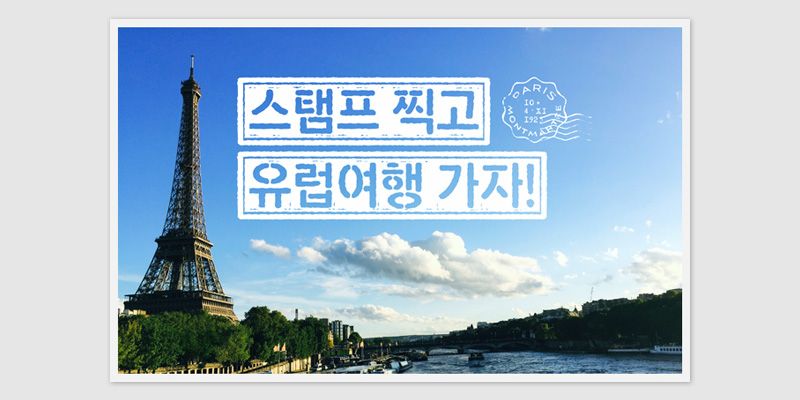
Rix Stamp Font Free Download is a rugged, vintage-inspired typeface that mimics the appearance of stamped or hand-printed text. With its distressed edges and uneven texture, this font is perfect for projects that require an industrial, retro, or DIY feel, such as branding, posters, packaging, and any design where an authentic, vintage aesthetic is desired.
Rix Stamp Font Free Download brings a raw, organic vibe to your typography, making it ideal for designs with an urban or retro flair. Whether you’re working on promotional materials, event posters, or any creative project requiring a bold, weathered look, this font helps evoke a sense of nostalgia and craftsmanship.
It pairs well with minimal or modern sans-serif fonts, providing contrast and depth in your designs.